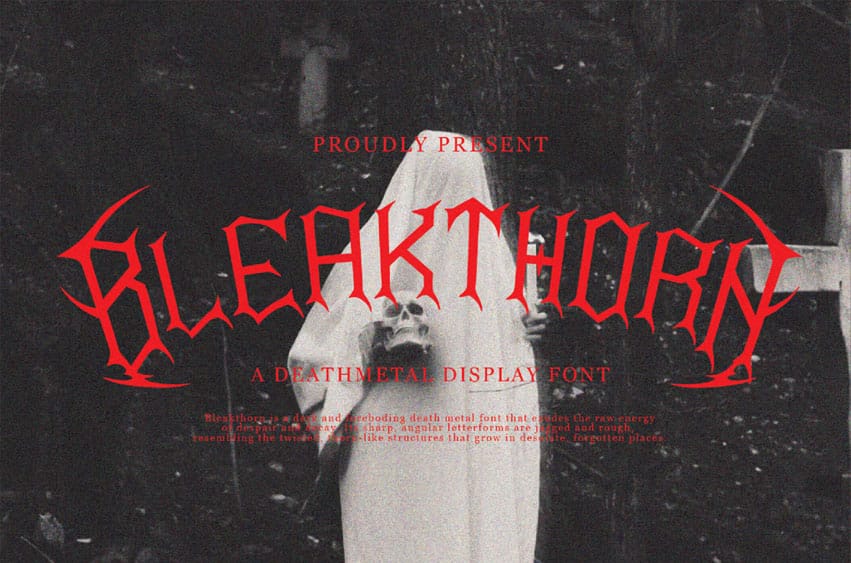
Bleakthorn Deathmetal Font is a dark and foreboding death metal font that exudes the raw energy of despair and decay.
Its sharp, angular letterforms are jagged and rough, resembling the twisted, thorn-like structures that grow in desolate, forgotten places.